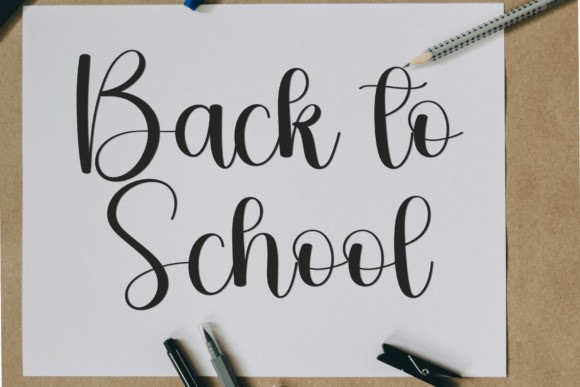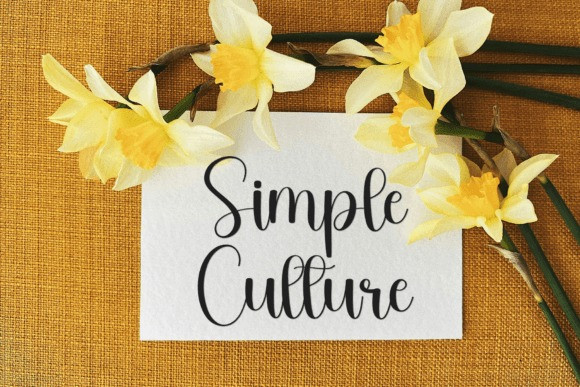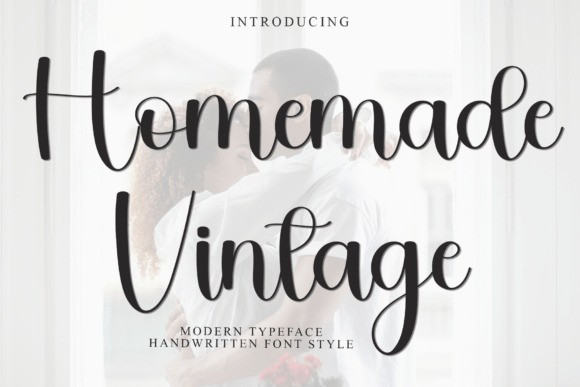
Homemade Vintage Font
Homemade Vintage Font is an exquisite handwritten font, masterfully designed to become a true favorite. It maintains its classy calligraphic influences while feeling contemporary and fresh. Fall in love with it and bring your projects to the highest levels!